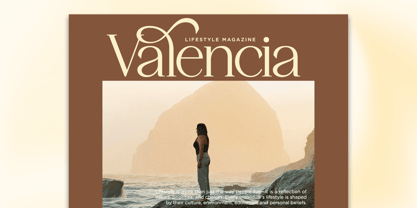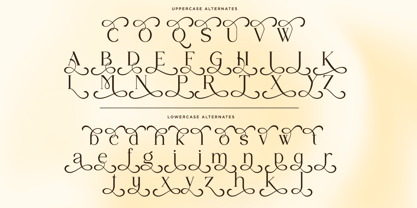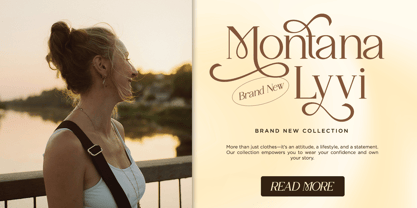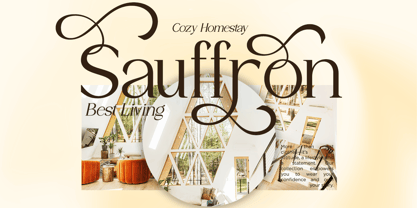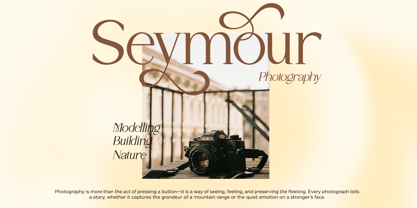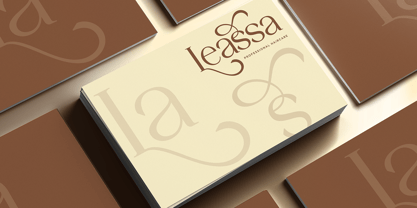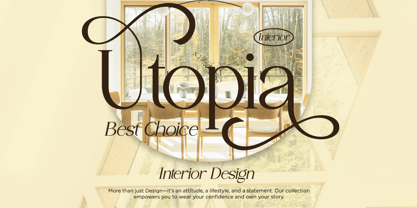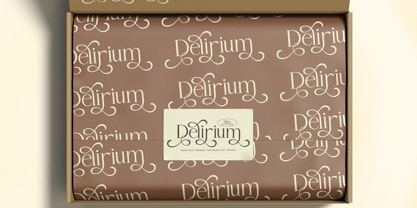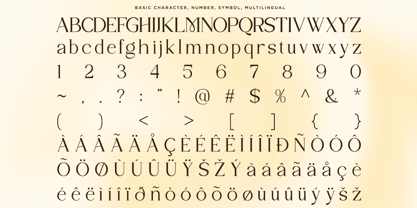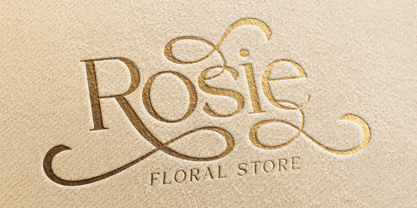
Sylvian
La famille de polices Sylvian a été conçue par Mussyayin et publiée par Say Studio. Sylvian contient 2 styles et options de package familial. En savoir plus sur cette famille
Sylvian is a modern elegant serif typeface that blends timeless sophistication with graceful artistic ligatures. Designed with refined proportions, delicate contrast, and luxurious flowing swashes, it creates a distinctive visual identity that instantly elevates any creative project.
From premium branding and fashion editorials to beauty packaging, wedding invitations, magazines, logo design, and luxury lifestyle campaigns, Sylvian delivers an effortlessly chic aesthetic. Every letter is crafted to balance classic serif elegance with expressive alternates, making your typography feel exclusive, memorable, and high-end.
Perfect for luxury branding, logo design, fashion editorials, beauty and cosmetic packaging, wedding stationery, lifestyle magazines, boutique identities, jewelry brands, photography portfolios, interior design projects, premium social media content, and sophisticated product packaging, Sylvian helps designers create timeless visuals with an elegant and distinctive personality.
• Regular and Italic Style
• Stylistic Alternates Uppercase
• Stylistic Alternates Lowercase
• Uppercase and Lowercase
• Number, Symbol, Punctuation
• Multi Language Support